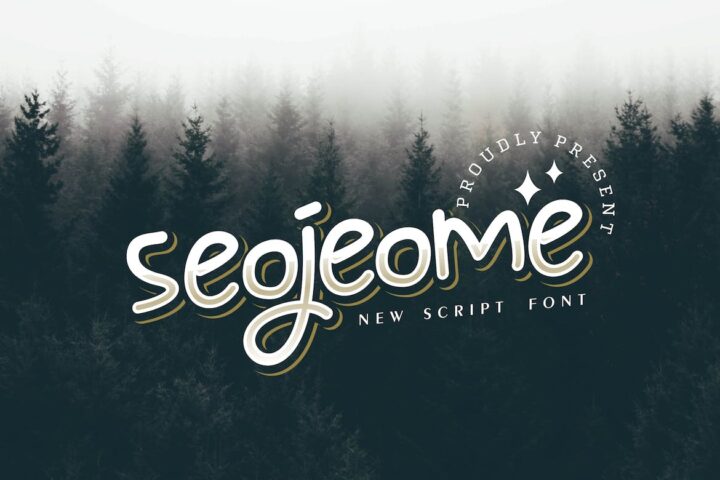
Seojeome Font
Introducing our new product Seojeome Font
Seojeome Font is a modern and authentic display font. The font is suitable for any branding project like logo, printing, and many more. outstanding in a wide range of contexts.